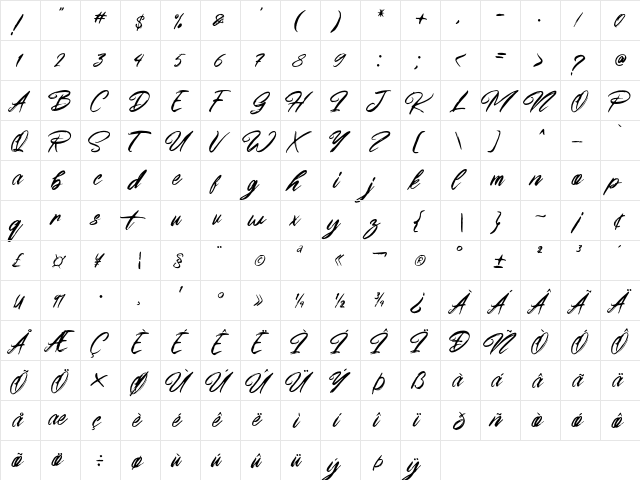
Young Blood Solid Free Regular
Design Context for Young Blood Solid Free Typeface
Young Blood Solid Free leans into the macabre with letterforms designed to disturb and intrigue in equal measure.
Ideal for Halloween projects, horror film titles, haunted house signage, and dark editorial design.
Font Pairing: Pair with a clean neutral sans-serif for body copy to let Young Blood Solid Free's character lead without overwhelming the composition.
Pro Tip: Young Blood Solid Free works best as a headline or focal element. Pair it against plain, neutral body text to amplify the contrast.